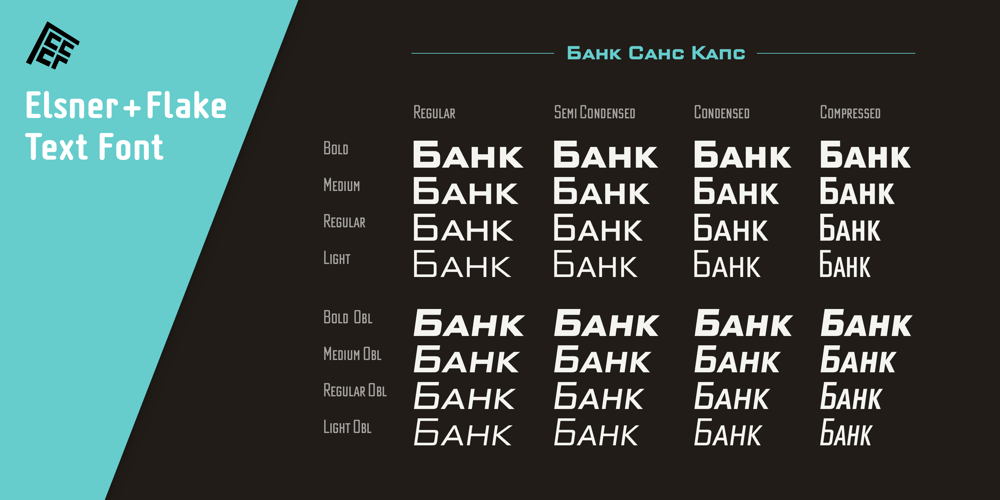
Bank Sans Caps EF Font Family was designed by Günther Flake, Morris Fuller Benton and published by Elsner+Flake. Bank Sans Caps EF contains 64 styles and family package options. Based on Bank Gothic designed by Morris Fuller Benton in the 30th, Bank Sans Caps from Elsner+Flake offers a wide variety of weights from Light to Bold with Compressed, Semi Condensed and Condensed widths. All weights are also available with Cyrillic character sets.